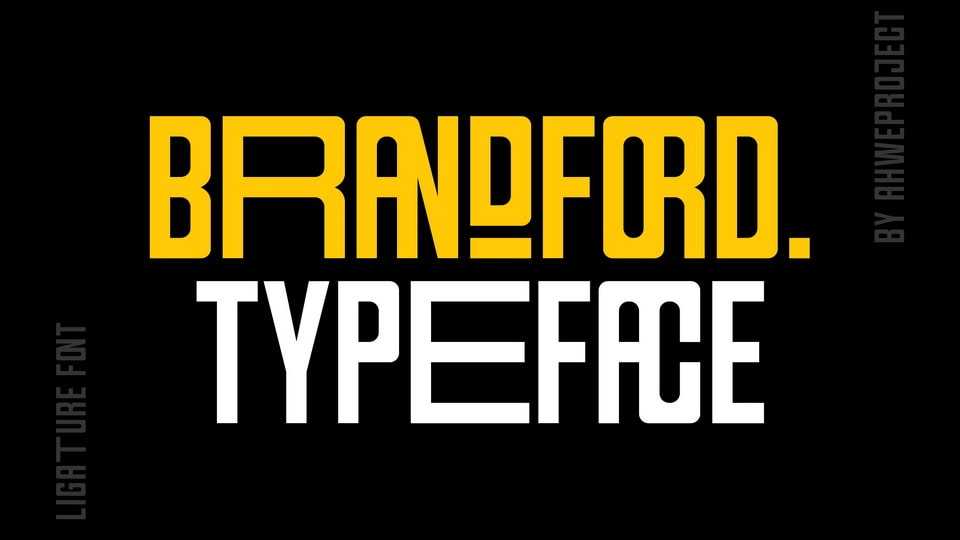
Download Brandford font, a simple sans serif typeface with ligatures and alternates. It was purposely crafted to be used in large point sizes, although it doesn’t lose its magic in small point sizes.